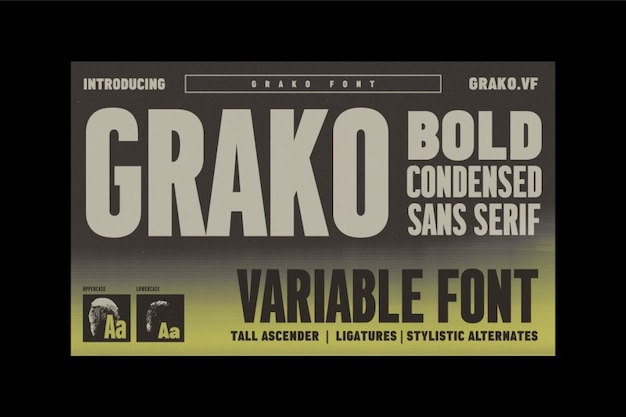
Grako Font
Drizy Studio
Grako font is a bold and simple typeface, reminiscent of characters found on license plates. Each letter exudes a straightforward and impactful style, perfect for conveying important information with clarity. Whether for signage, branding, or design projects requiring a no-nonsense approach, Grako adds a touch of efficiency and reliability to every composition